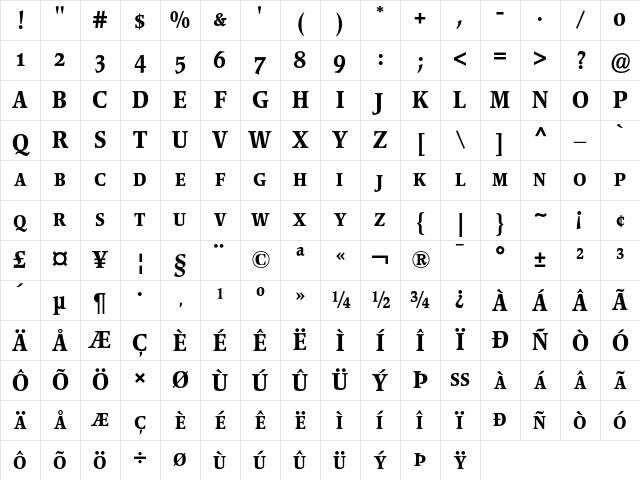
Poppl-Pontifex BE Medium Condensed with Small Caps
Style: Medium Condensed with Small Caps
Design Context for Poppl-Pontifex BE
Poppl-Pontifex BE is a composed and adaptable typeface that performs quietly and consistently across a wide range of design contexts. Its narrow stance lets it pack a punch even in space-constrained designs.